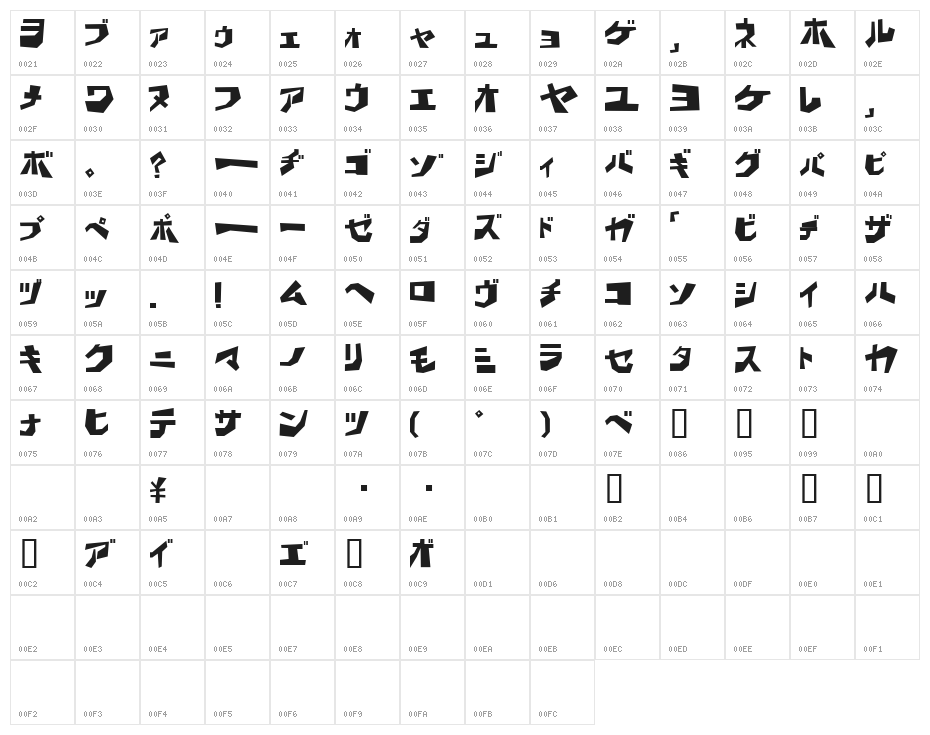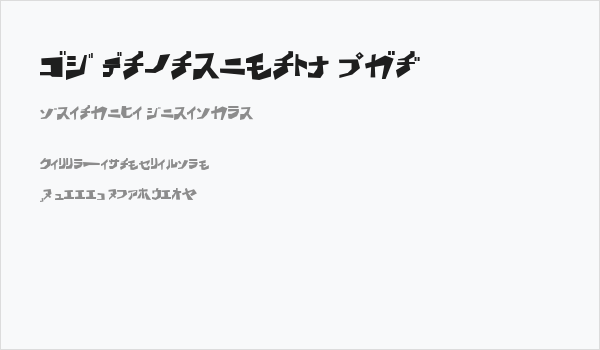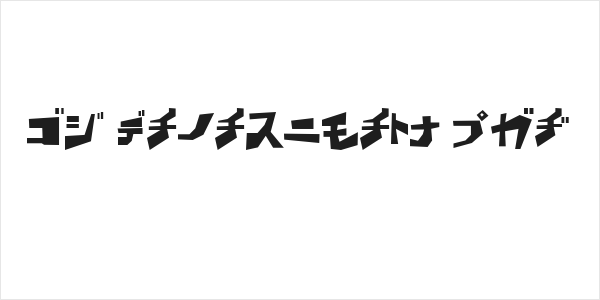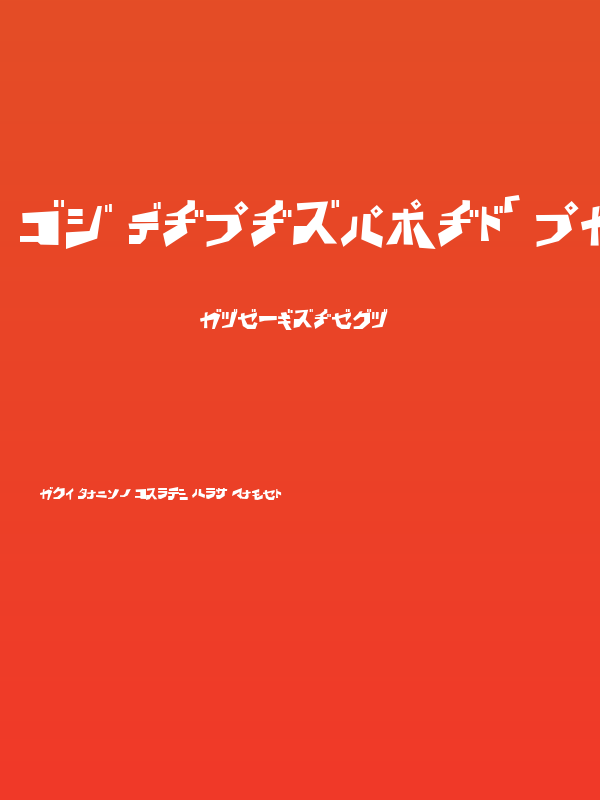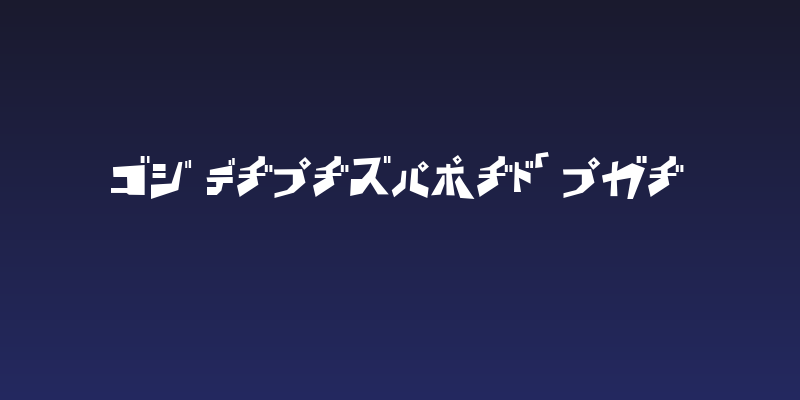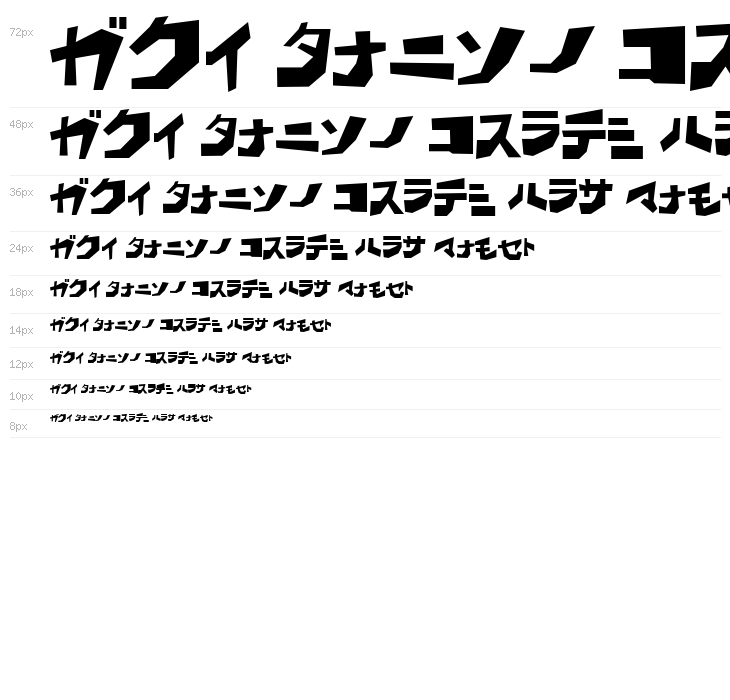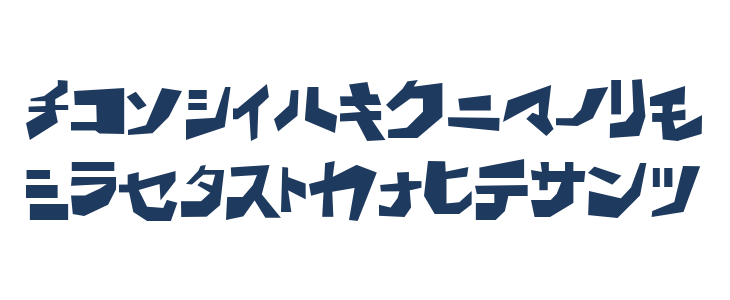
BD Wakarimasu KTA Font
BD Wakarimasu KTA Description
This font features bold, angular characters with a distinctly modern and edgy appearance. The strokes are thick and uniform, giving it a strong presence. The characters are designed with sharp edges and a geometric style, creating a sense of movement and energy. This font is highly legible and stands out due to its unique design, making it suitable for attention-grabbing headlines and titles. The overall look is dynamic and contemporary, with a hint of futuristic flair.